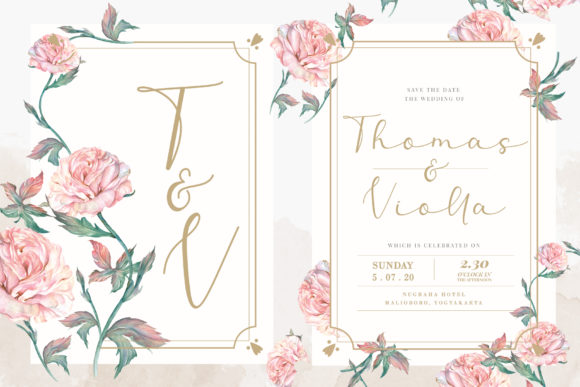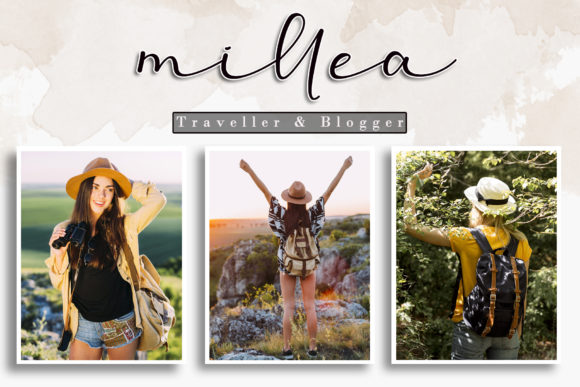
Allesia Font
db-ku.com - Script & Handwritten -- Allesia is a gorgeous handwritten font that brings its own unique style to any design project. It will elevate a wide range of design projects to the highest level, be it branding, headings, wedding designs, invitations, signatures, logos, labels, and much more!